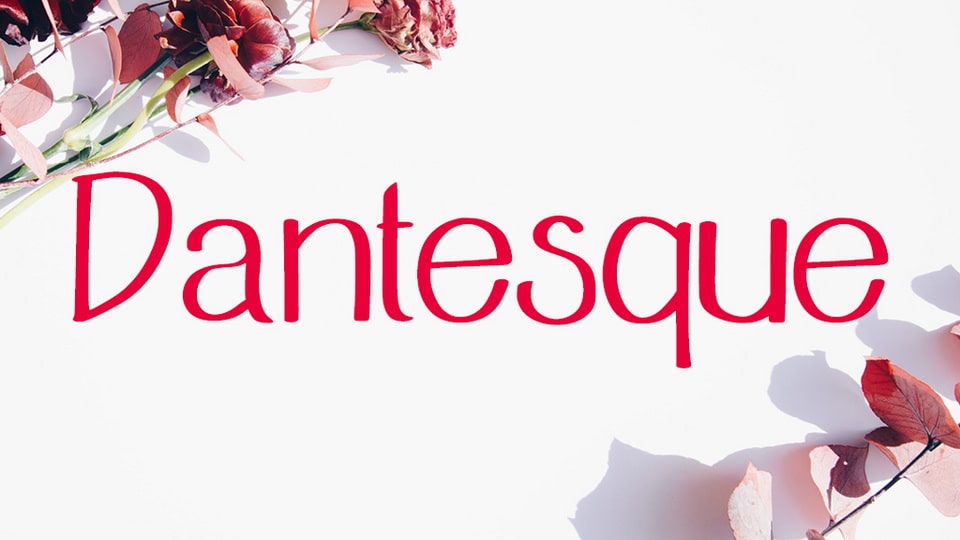
Download Dantesque font, a fancy and cute handwritten typeface for cute and crude words. It’s perfect for notes, quotes, crafts, greeting cards and any projects that needs a warm and friendly look.
Designer: Grand Sage